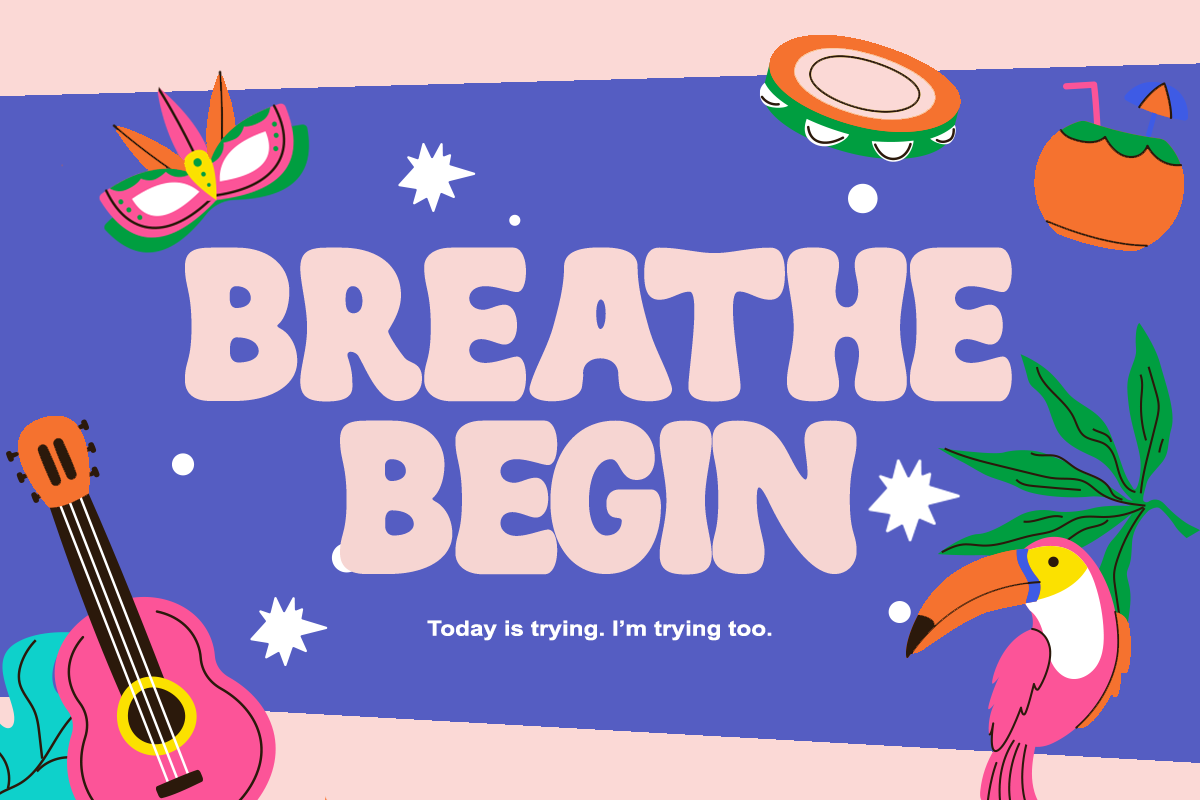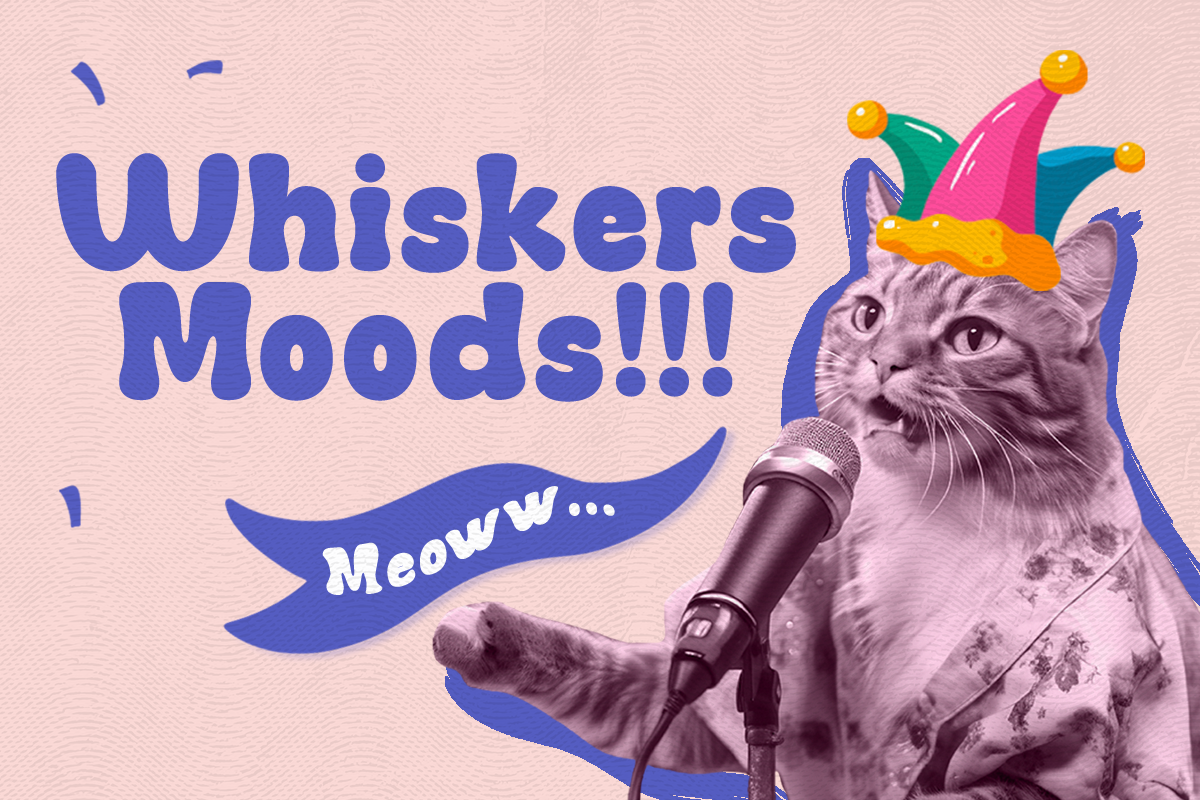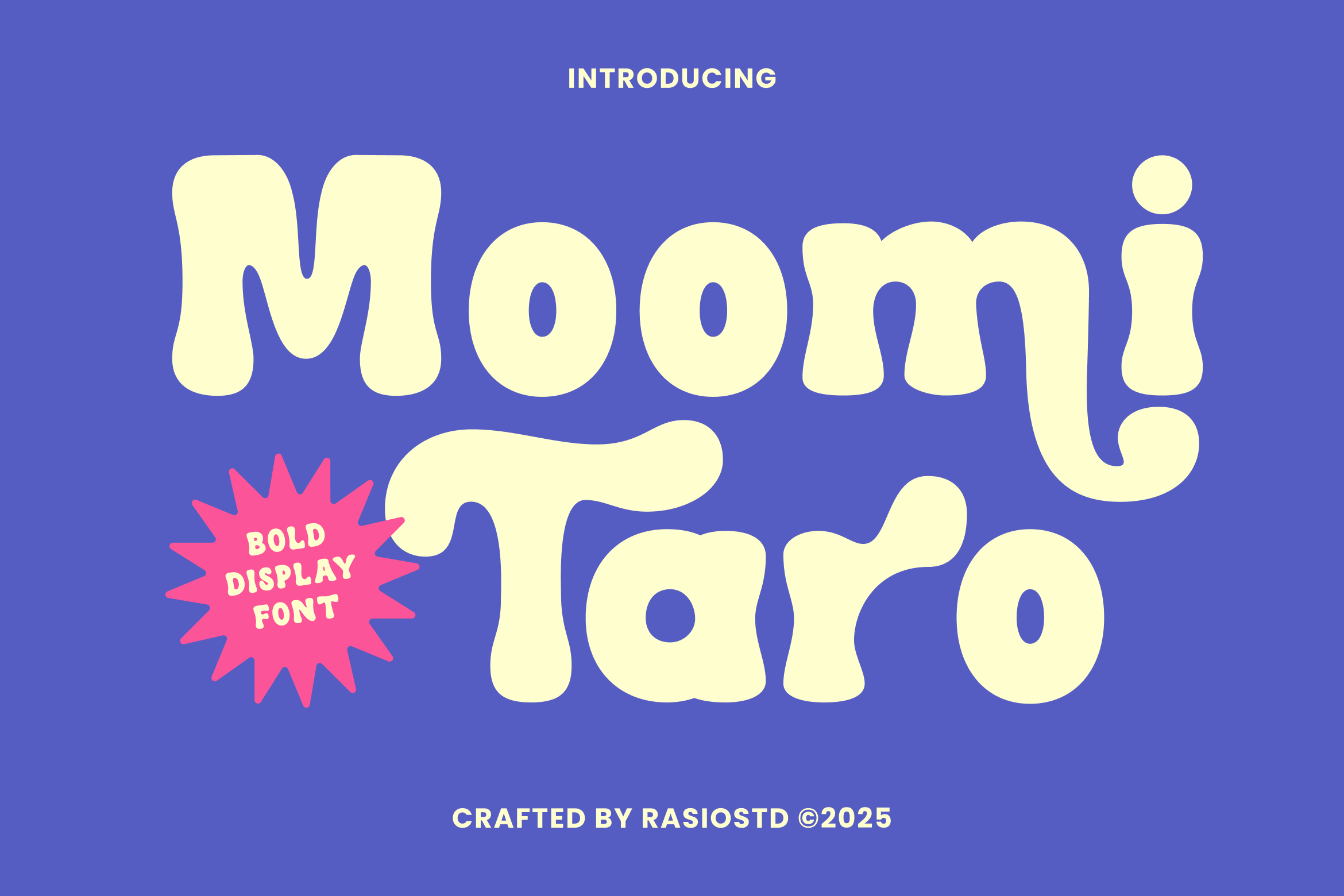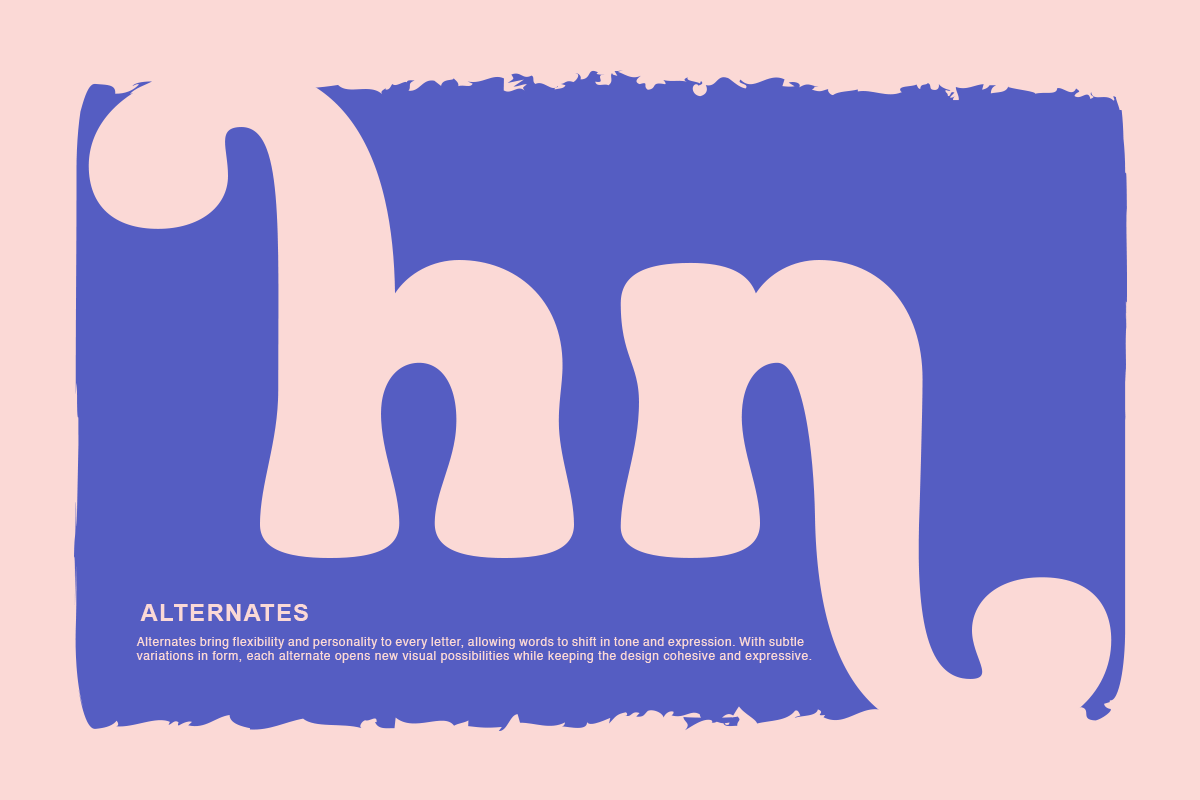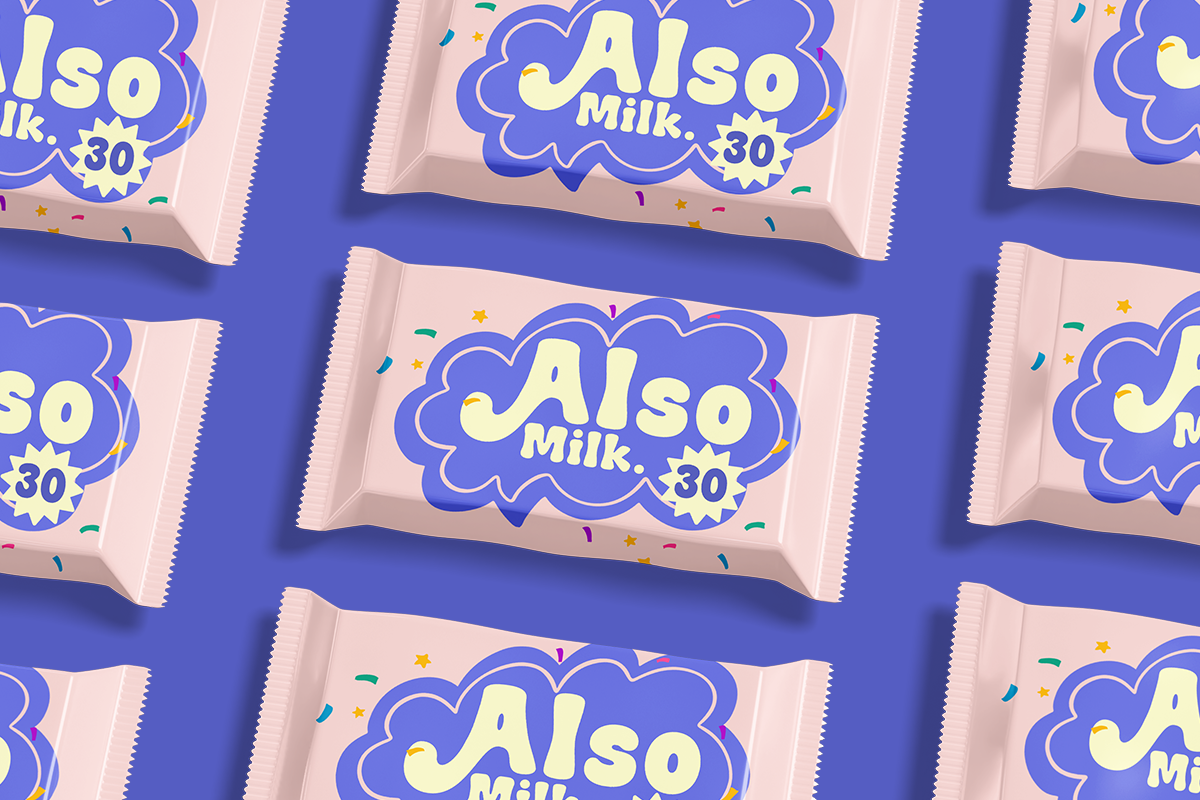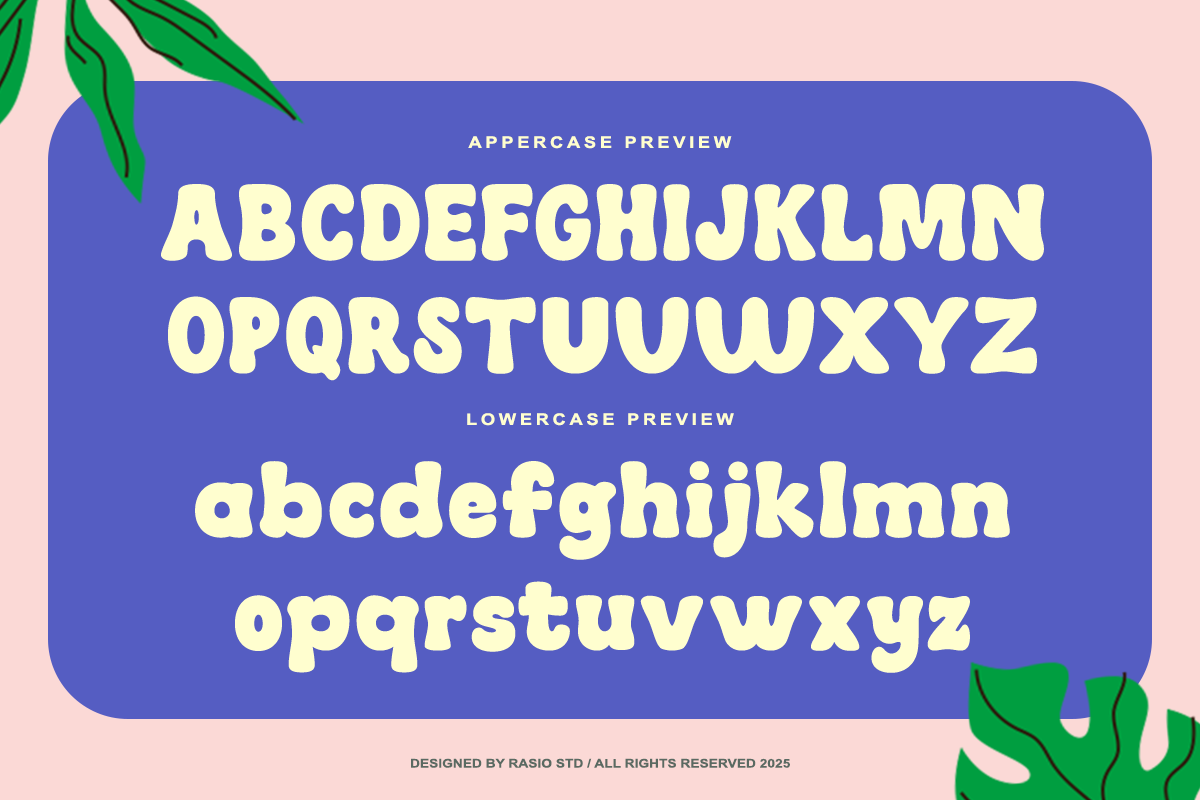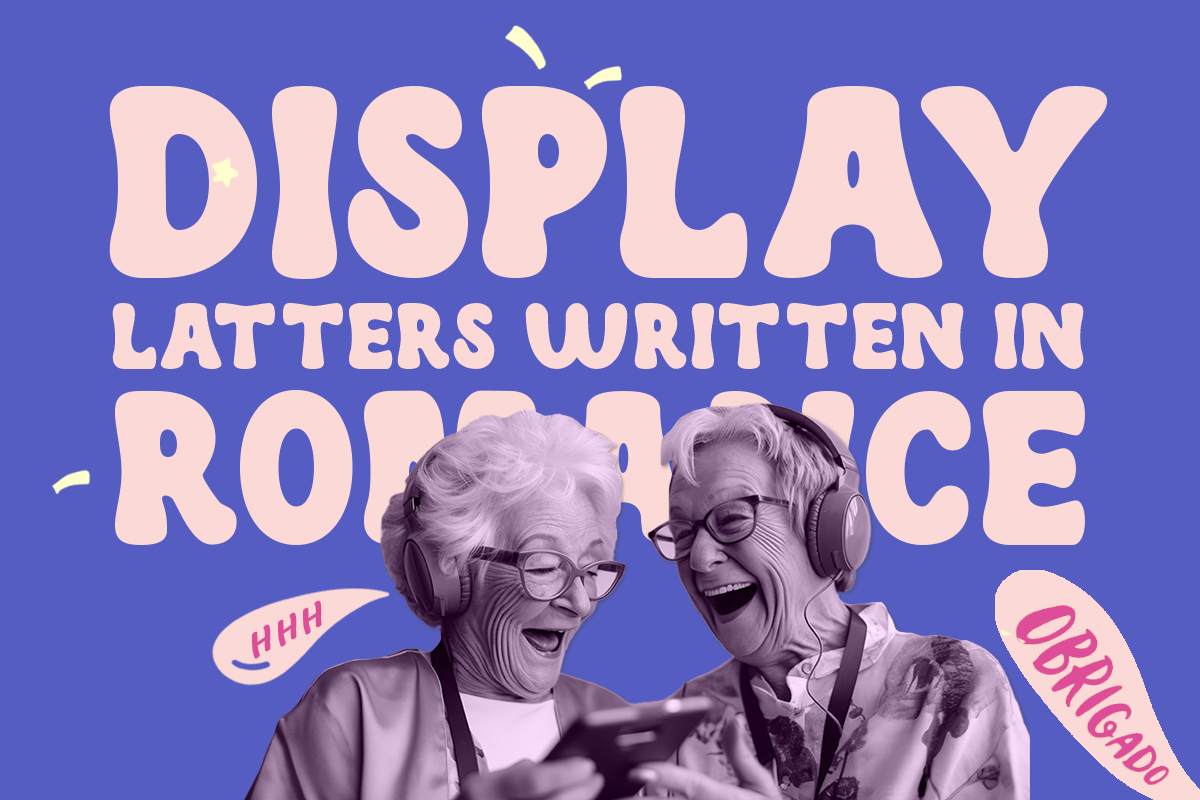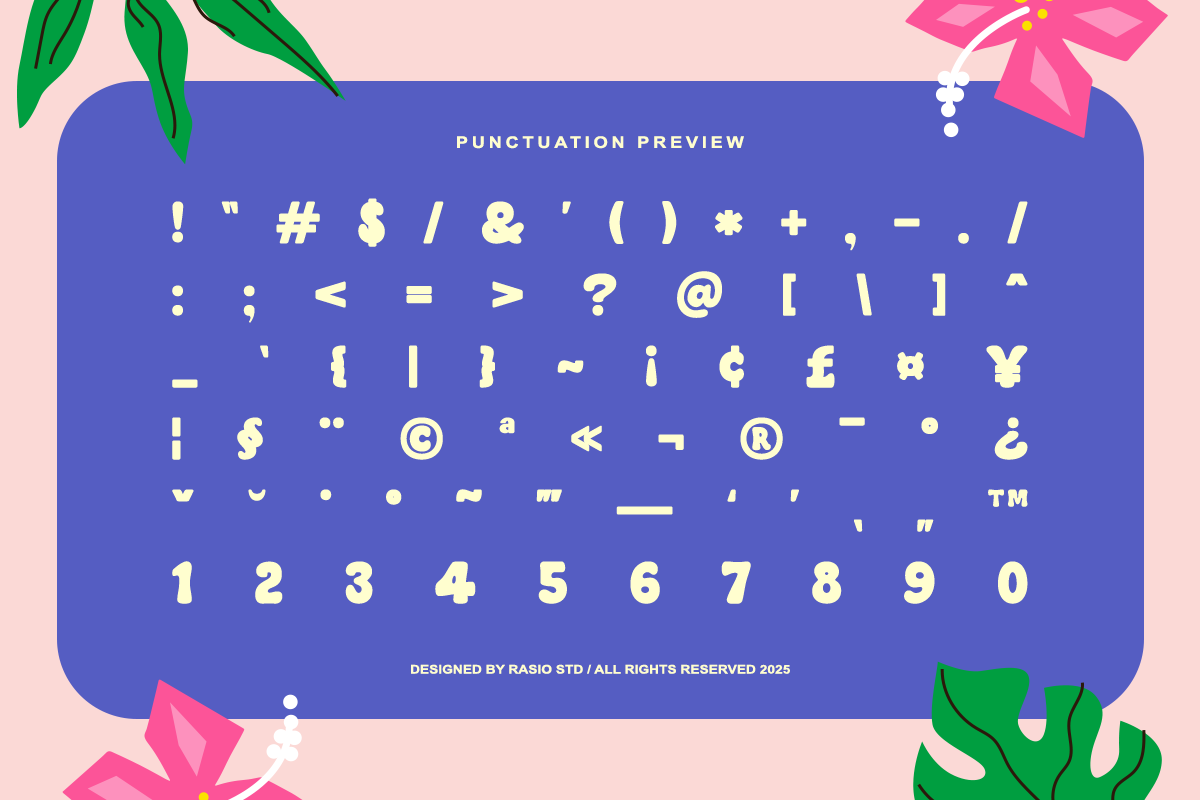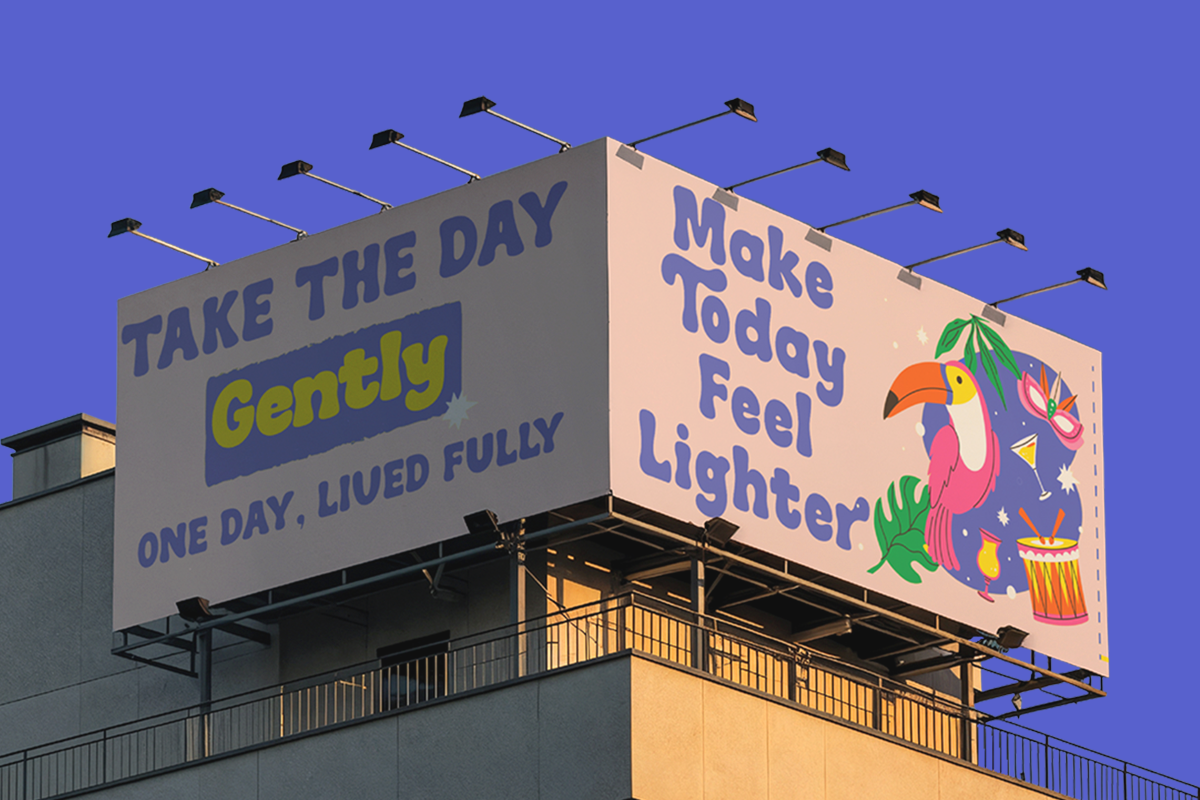
Moomi Taro Playful Display Font
Moomi Taro is a fun and quirky bold display typeface inspired by playful shapes and childhood joy. With its chunky, soft curves and friendly letterforms, this font brings instant charm and positivity to your designs. Perfectly suited for kids-themed projects, cartoons, party invitations, product packaging, and colorful branding, Moomi Taro is easy to read and full of personality. The font includes uppercase and lowercase characters with consistent visual rhythm and whimsical design language.
Relevance and Use Cases is perfect for designers working on children’s products, party stationery, toy branding, colorful packaging, fun posters, or social media campaigns. It is especially effective for projects aimed at a young audience or those looking to evoke a lighthearted, approachable feel. Whether you're creating a vibrant logo or a playful design, Moomi Taro delivers a bold and memorable visual impact.
- Playful bold display design with soft bubbly letterforms
- Rounded shapes that create a friendly and cheerful personality
- Thick strokes for strong visibility in headlines and titles
- Fun character proportions that enhance expressive typography
- Balanced spacing for clear readability in playful display layouts
- Kids brand identity, toy packaging, and playful logo design
- Children’s books, comic titles, and fun editorial layouts
- Cartoon posters, game graphics, and entertainment visuals
- Product packaging for snacks, candy, and playful merchandise
- Social media graphics, stickers, and cheerful marketing materials